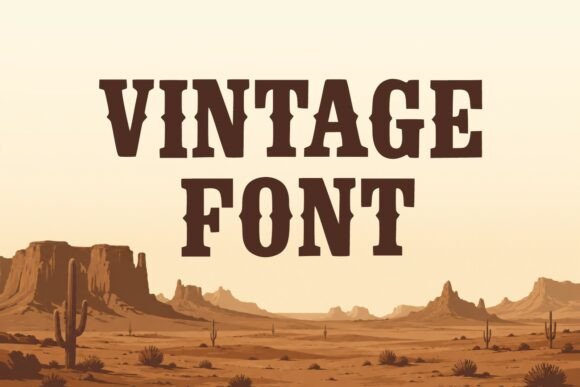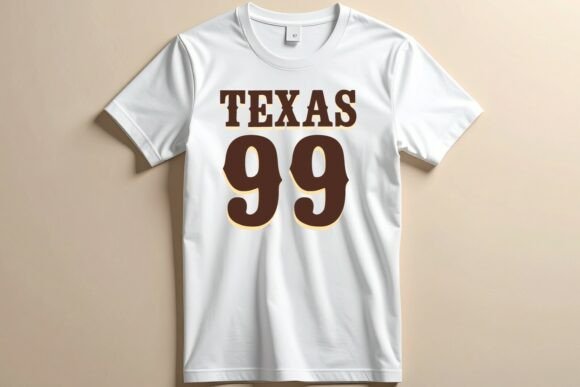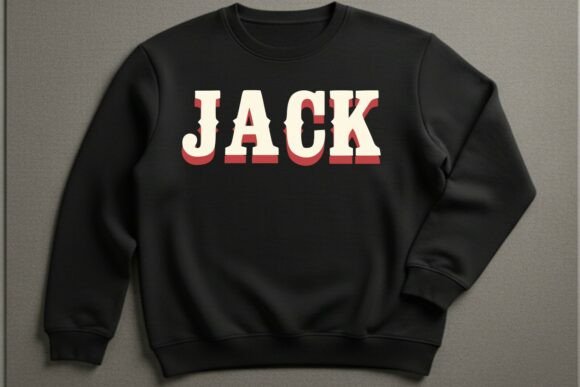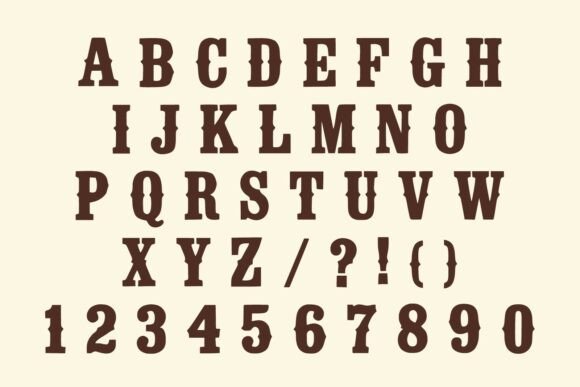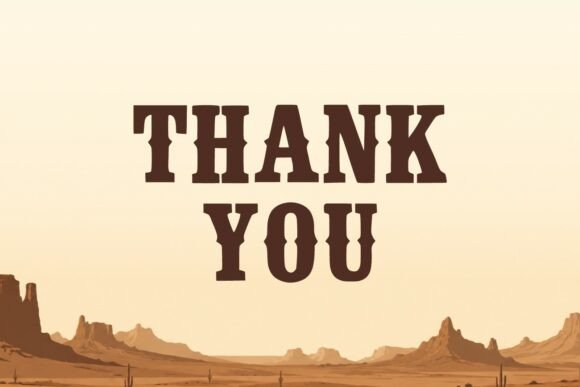
Bronco Western Font: Saddle Up for a Vintage Cowboy Style
Are you looking for a font that embodies the spirit of the Wild West? Do you want to add a touch of ruggedness and timelessness to your designs? Look no further than the Bronco Western Font, a bold and vintage western font that’s perfect for designers, crafters, and anyone who loves the great outdoors.
Inspired by Classic Cowboy Culture
The Bronco Western Font is inspired by the classic cowboy culture of the American West. Its strong slab serif characters are reminiscent of old saloon typography, while its retro western styling evokes the desert landscapes and rugged terrain of the Wild West. This font is the perfect choice for anyone who wants to add a touch of authenticity to their designs.
The Bronco Western Font is versatile and can be used for a variety of projects, including:
- Logos: Add a touch of ruggedness to your logo with this bold and eye-catching font.
- Posters: Create striking posters for rodeo events, concerts, or festivals with this font.
- T-shirt designs: Design unique and stylish t-shirts with this font that’s perfect for country-themed apparel.
- Branding: Use this font to create a cohesive brand identity that’s authentic and rugged.
- Packaging: Add a touch of western charm to your packaging with this font.
- Country themes: Create designs that evoke the great outdoors with this font.
- Rodeo events: Use this font to create eye-catching posters, flyers, and tickets for rodeo events.
- Vintage-inspired projects: Add a touch of nostalgia to your designs with this vintage western font.
Authentic Western Atmosphere
The Bronco Western Font has an authentic western atmosphere that adds a rugged and timeless touch to any creative design. Its strong slab serif characters and retro western styling evoke the spirit of the Wild West, making it perfect for designers who want to create designs that are both nostalgic and modern.
Features of Bronco Western Font
The Bronco Western Font has several features that make it a great choice for designers:
- Bold and eye-catching: This font is perfect for designs that need to stand out.
- Retro western styling: This font has a unique and authentic western style that’s perfect for country-themed designs.
- Strong slab serif characters: This font has a rugged and sturdy feel that’s perfect for designs that need to convey a sense of strength and resilience.
- Versatile: This font can be used for a variety of projects, from logos to packaging.
Tips for Using Bronco Western Font
Here are some tips for using the Bronco Western Font:
- Use it sparingly: This font is bold and eye-catching, so use it sparingly to avoid overwhelming your design.
- Pair it with other fonts: Pair this font with other fonts that have a more modern or elegant feel to create a striking contrast.
- Experiment with colors: This font looks great in bold colors like red, blue, and yellow, but feel free to experiment with other colors to find the perfect combination.
The Bronco Western Font is a bold and vintage western font that’s perfect for designers, crafters, and anyone who loves the great outdoors. Its strong slab serif characters and retro western styling evoke the spirit of the Wild West, making it perfect for designs that need to convey a sense of ruggedness and timelessness. With its versatility and authentic western atmosphere, this font is sure to be a great addition to any design project.